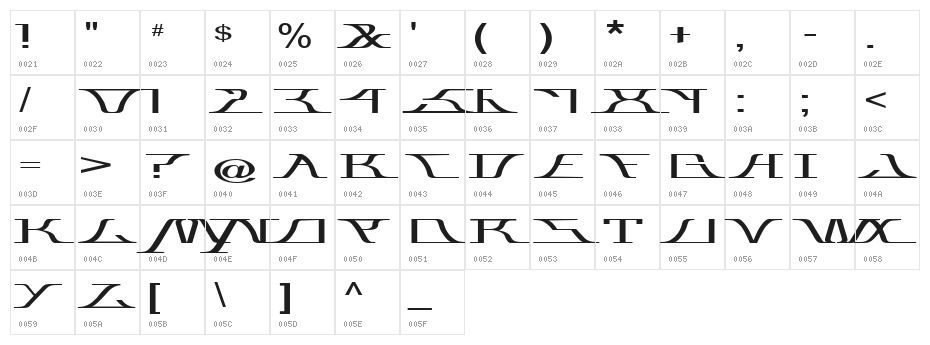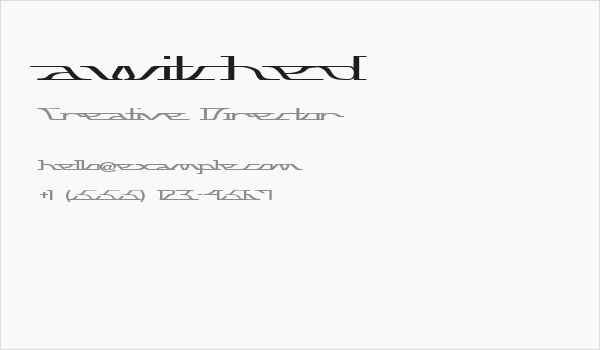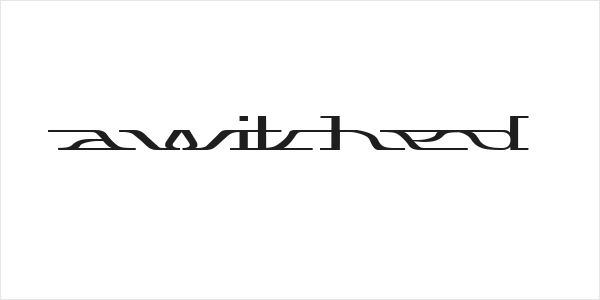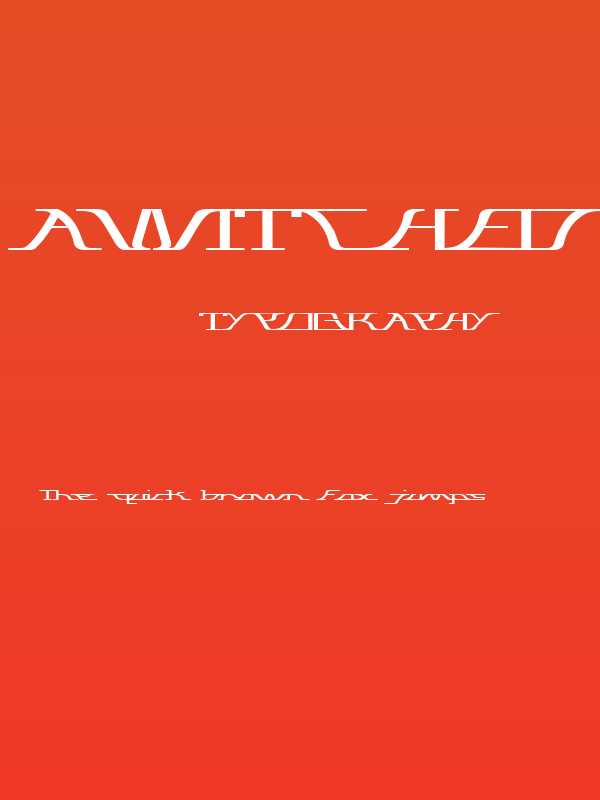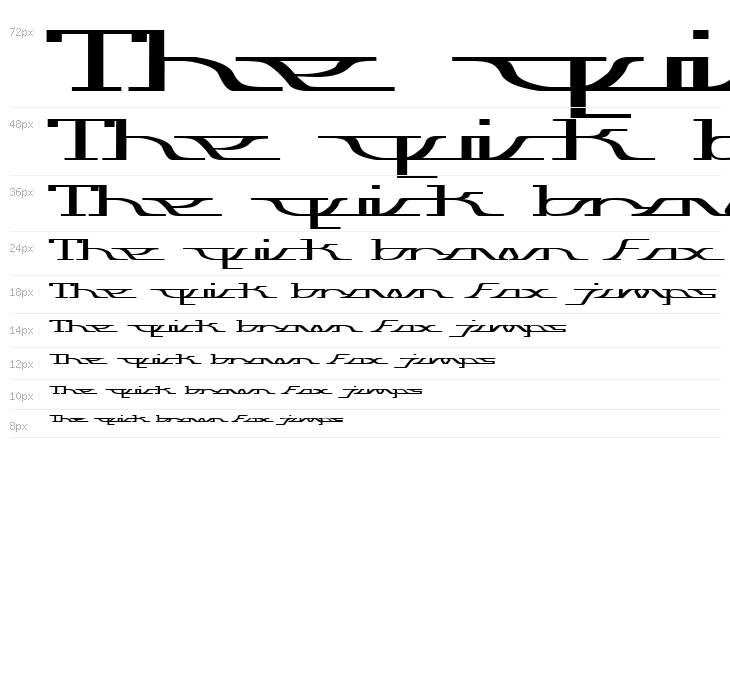
awitched Font
awitched Description
This font features a futuristic and angular design, characterized by sharp edges and geometric shapes. The letters are interconnected with unique cuts and lines, giving it a highly stylized and modern appearance. The uppercase and lowercase letters maintain a consistent style, with a focus on horizontal and diagonal strokes. Numbers and special characters are equally distinctive, incorporating the same angular elements. This font is visually striking and commands attention with its bold and unconventional design.
| Proposed Projects | Ideal for sci-fi themed projects, technology branding, video game titles, and modern art posters. |